What is the best font for programming in a Linux Desktop?
Solution 1
Monospace. It's badass, and fixed width.
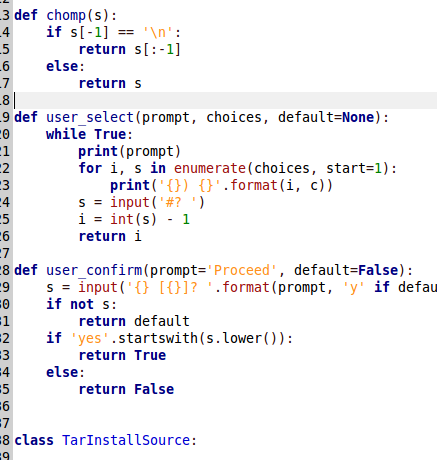
Solution 2
Inconsolata font by Raph Levien is quite good.
Solution 3
Inconsolata happens to be my favourite. It's free, it's great and it's generally available in the package repositories of most Linux distros.
Solution 4
This is a tough one and comes down to preference, from Lucida Console to Proggy fonts... http://hivelogic.com/articles/top-10-programming-fonts/ displays some of them.